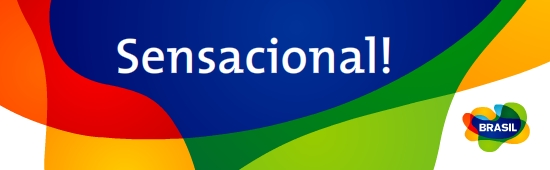
Hey. I'm looking for the Skia Bold font face as the newspaper uses it. However, I can't seem to find it on any of the computers they are using with Mac OS 9 and none of the font sites appear to have it. The regular is included in OS X, but not the bold one. If anyone knows where to get it (commercial or free font), please let me know.
Skia
Skia is a stylish sans serif face by Matthew Carter. It was built as a showcase for Apple?s QuickDraw GX technology, and as such has variable weight and width axes. Like a multiple master font, users with the correct software (try SimpleText Pro in MacOS 9) can fine-tune weight and width using sliders in their applications. The font includes old-style numerals, inferior and superior numbers and letters, fractions, and ligatures, demonstrating the richness of character set that such fonts can contain. GX fonts are now correctly termed AAT fonts.
There you go, if you have the right tools you can make it look bold
Interesting. Would be nice if I could find that tool for OS X, but I'll still try to see if I can bug the newspaper staff to change that text to the regular interface. This is so they wouldn't have to worry about looking for the font if they have to upgrade to OS X and use Adobe CS2.